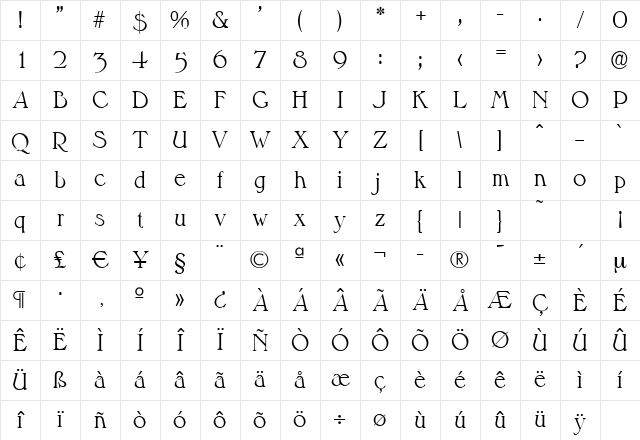
HenryBecker-Light Regular
Complete HenryBecker-Light Regular glyph index. Displaying only characters natively supported by HenryBecker-Light Regular font.
Design Context for HenryBecker-Light
HenryBecker-Light is a composed and adaptable typeface that performs quietly and consistently across a wide range of design contexts. Its slender proportions lend an understated elegance to any composition.